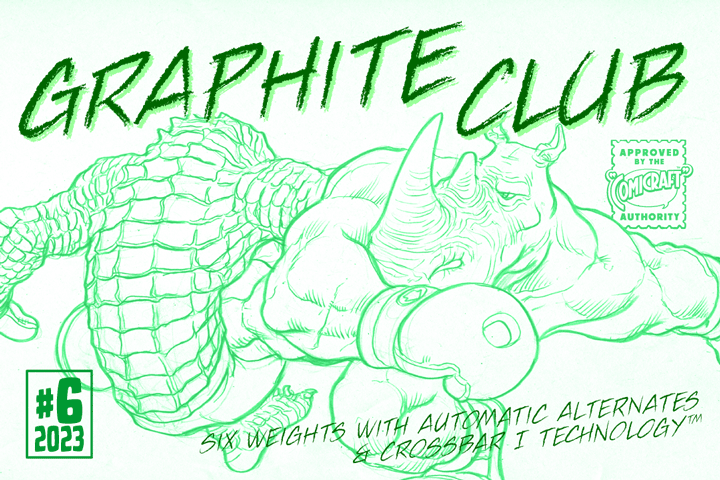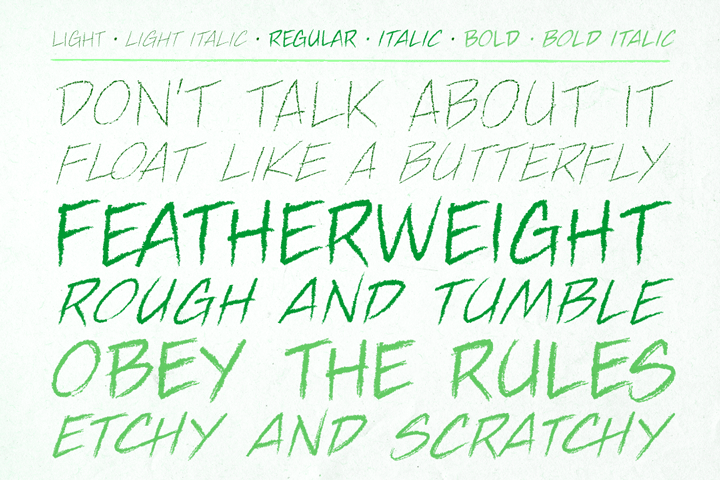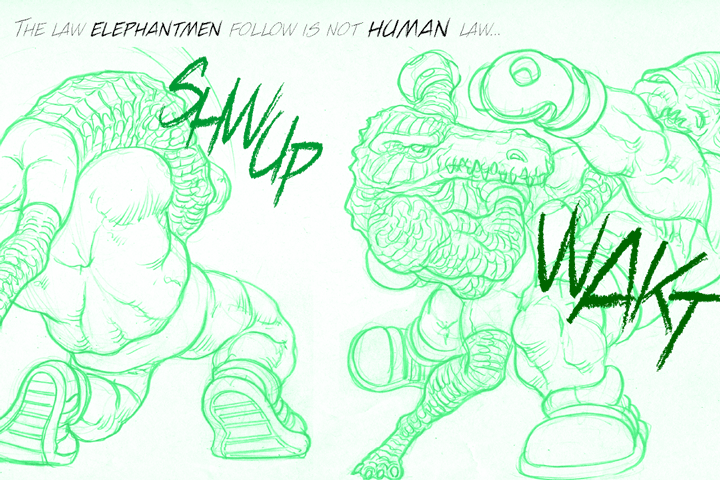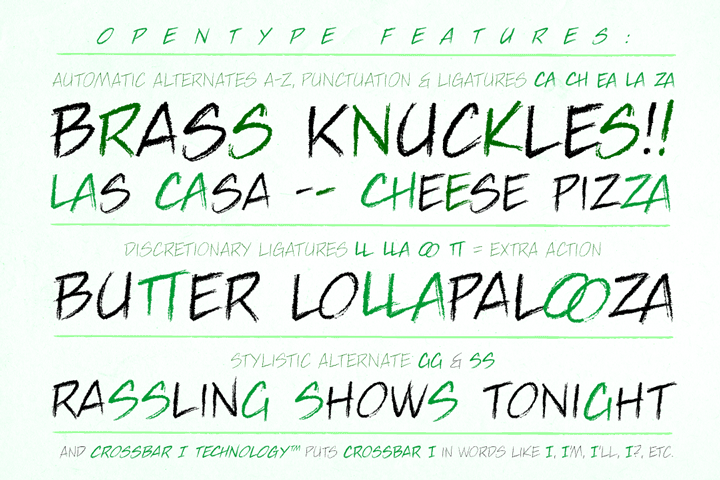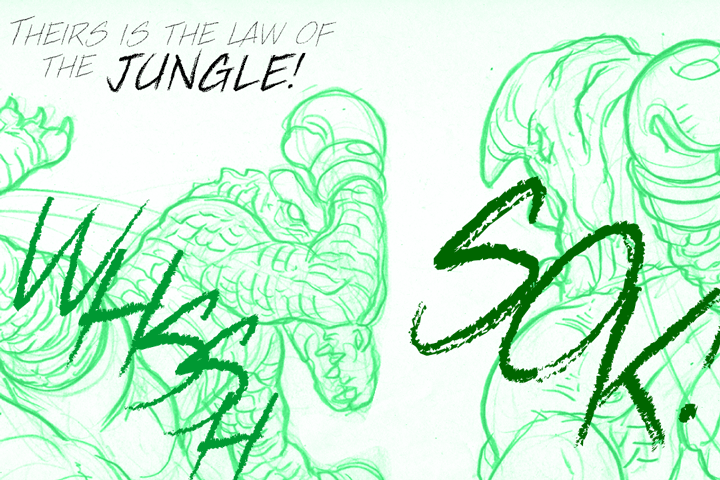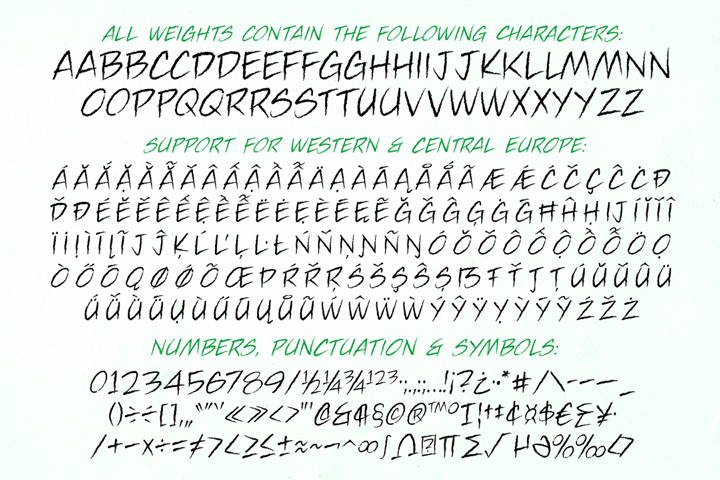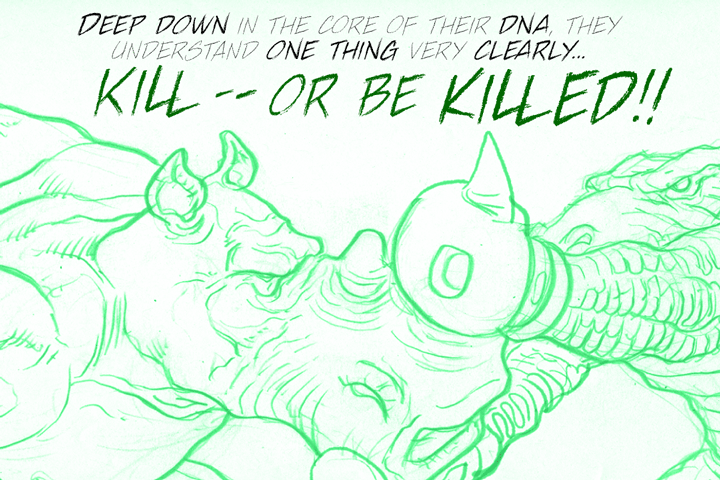
Graphite Club
The eight rules of Graphite Club:
You do not talk about Graphite Club…
You do NOT talk about Graphite Club.
If someone types "Stop" taps out “Limp,” the Graphite is over.
Only two --
Waitasecond! EVERYBODY wants to talk about Graphite Club! It's the font for rough and tough typesetting that looks as etchy and sketchy, sleek and sexy as Brad Pitt on an off day. It's Light as a featherweight, it's as Regular as wetwork and as Bold as Brass Knuckles. And don't let anyone tell you this font is not special. It's as beautiful and unique as a snowflake. And so are you.
Six weights with alternate uppercase alphabets
Languages: Complete Europe (221)
Plus: Automatic alternates, Stylistic Alternates & Crossbar I Technology™